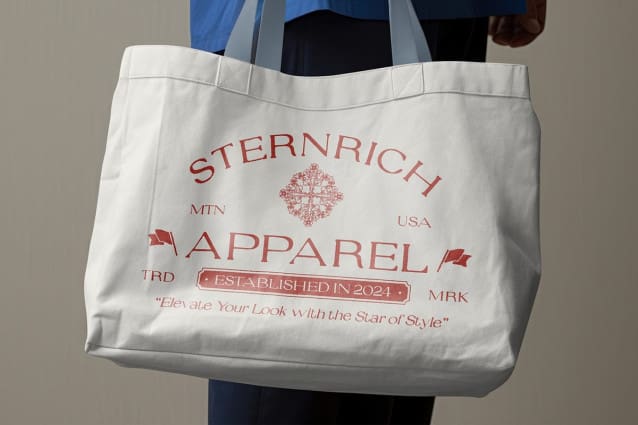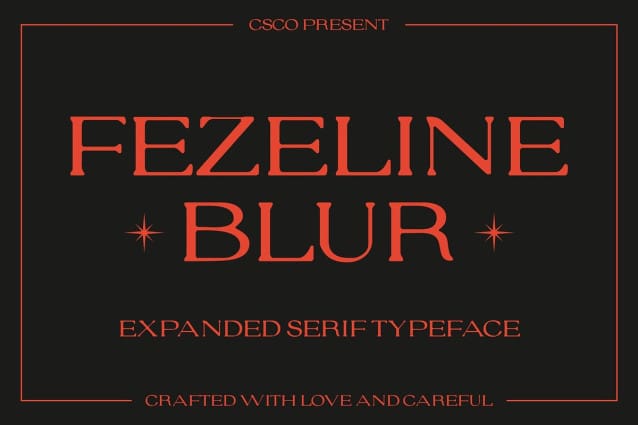
Fezeline Blur Font
Fezeline Blur Font is a modern serif font with wide serifs, offering a perfect blend of elegance and openness. Its clean, refined lines and balanced proportions convey a sense of sophistication and class. The wide serifs enhance the font’s readability, making it a top choice for luxury branding, formal invitations, high-end editorial layouts, and creative design projects where elegance and clarity are key.
Artistic Blur Effect The subtle blur effect incorporated into Fezeline Blur adds a unique artistic touch, blending minimalism with visual depth. This soft, delicate blur creates a sense of movement and fluidity, enhancing the font’s overall aesthetic without compromising its legibility. The effect brings a contemporary twist to the traditional serif design, giving it a more dynamic and visually engaging appearance.
Prestigious and Captivating Fezeline Blur is designed to make a lasting impression. Its combination of wide serifs, sleek curves, and the artistic blur effect offers a prestigious yet captivating look. The font is ideal for projects that require a sophisticated and high-end feel—perfect for branding luxury products, creating formal invitations, or designing exclusive editorial layouts. Its refined elegance is perfect for any creative project that aims to strike a balance between modern innovation and timeless luxury.